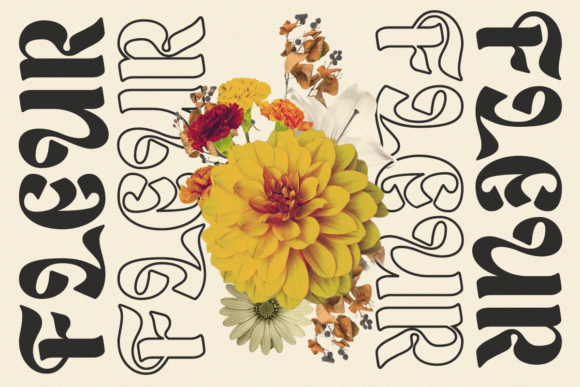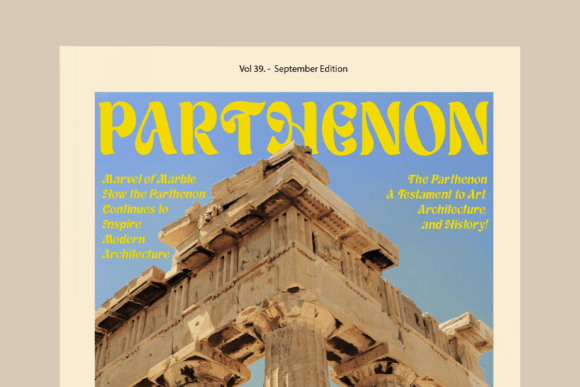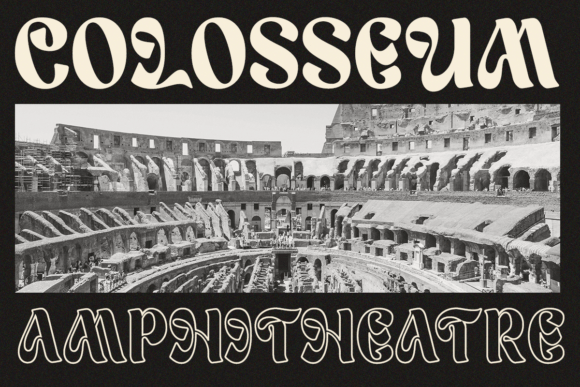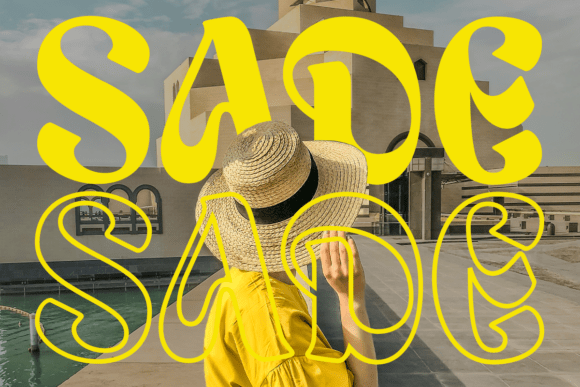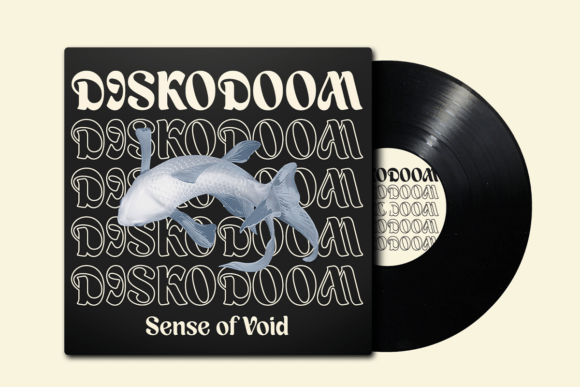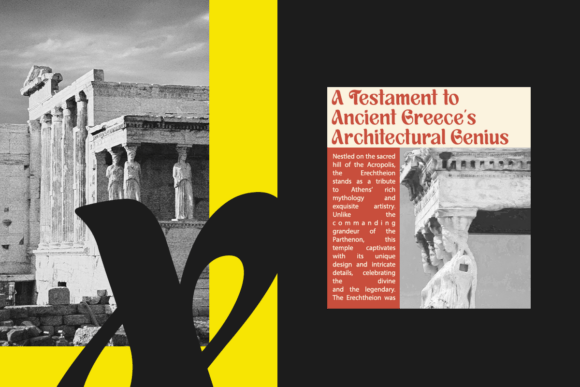
Introduction to Lunarya Font Font
Fonts play a crucial role in design, and the Lunarya Font font is a typeface that brings both character and versatility to any project. Whether you’re working on a branding project, a website, or a print design, the Lunarya Font font offers a unique style that can elevate your work.
Introducing Lunarya a Unique Display Font with Outline and Italic Style.
All capital letters with psychedelic style Lunarya has some Special Alternates and ligatures some fun nuance to your design.
Key Features of Lunarya Font Font
Why Choose Lunarya Font Font?
The Lunarya Font font is more than just a typeface – it’s a design tool that helps you communicate your message with style and clarity. Its unique character set and versatile design make it suitable for a wide range of applications, from elegant invitations to bold headlines.
With its carefully crafted letterforms and balanced proportions, the Lunarya Font font ensures readability and visual appeal across all mediums.
What makes Lunarya Font font special?
The Lunarya Font font stands out with its unique design, exceptional readability, and versatility across various design applications.